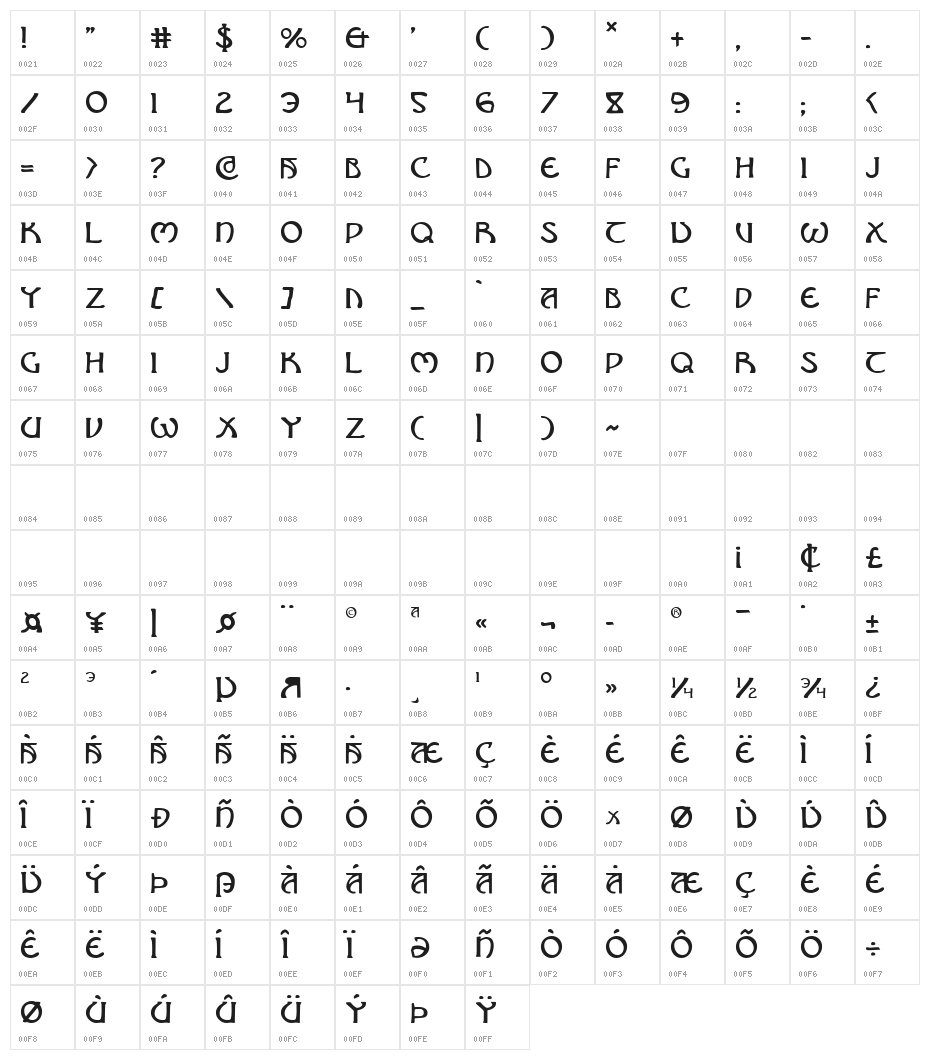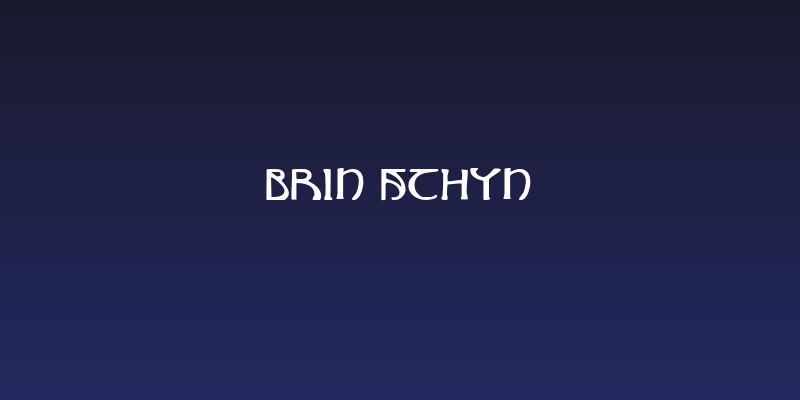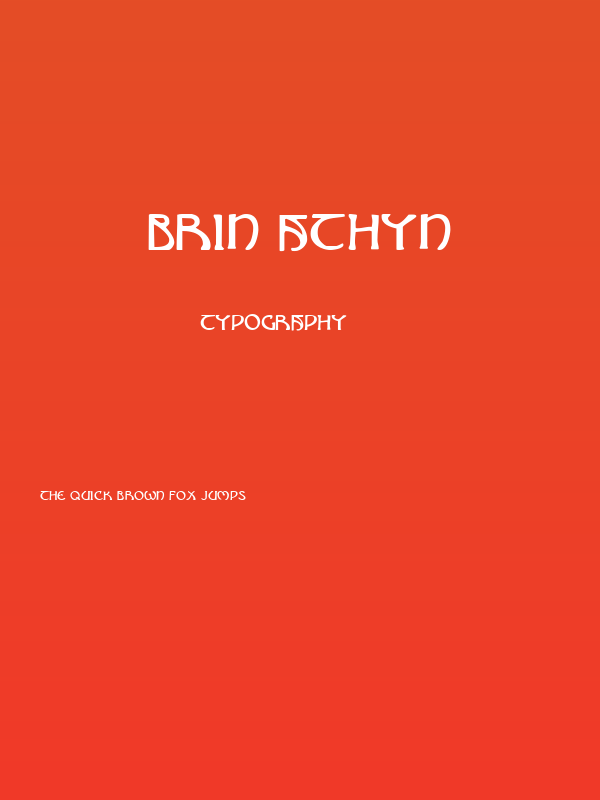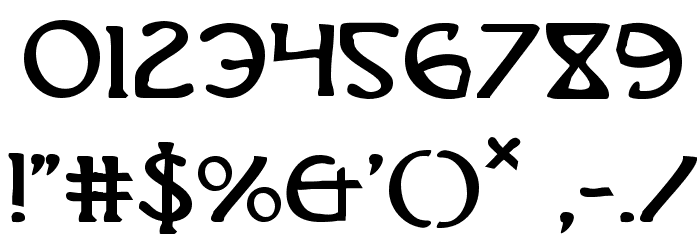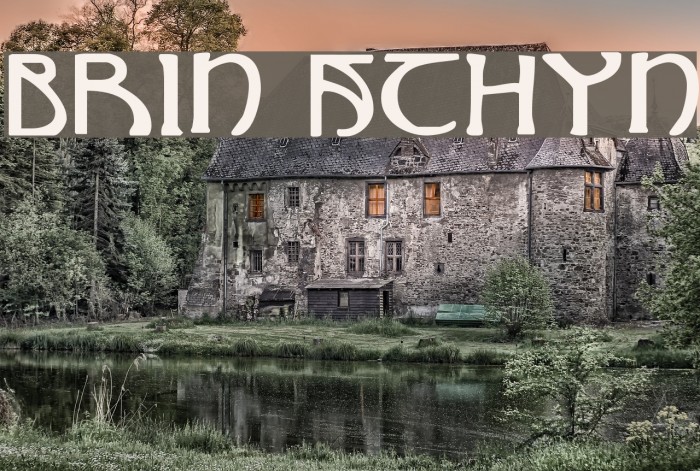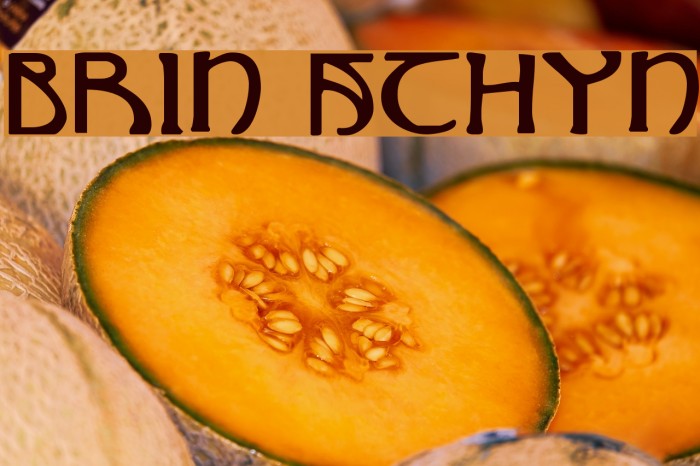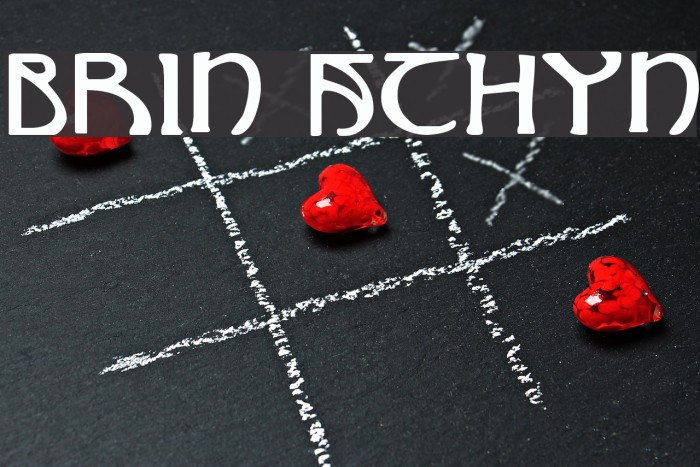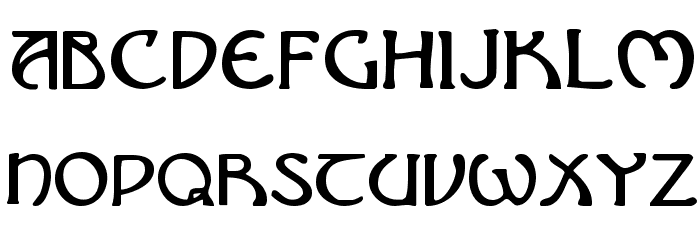
Brin Athyn Font
Brin Athyn Description
This font features a unique and artistic style with a blend of modern and vintage elements. The characters have a distinct, slightly curved design that adds a playful yet sophisticated touch. The uppercase letters are bold and prominent, while the lowercase letters maintain a consistent flow with subtle variations in stroke thickness. The numbers are equally stylized, providing a cohesive look across all characters. Special characters are creatively designed, maintaining the overall aesthetic of the font. This font is perfect for projects that require a touch of elegance and creativity.
| Overall Style | Modern, Vintage |
| Use Case | Logos, Headlines, Posters |
| Proposed Projects | Ideal for branding, logos, posters, and creative design projects that require a distinctive and artistic touch. |